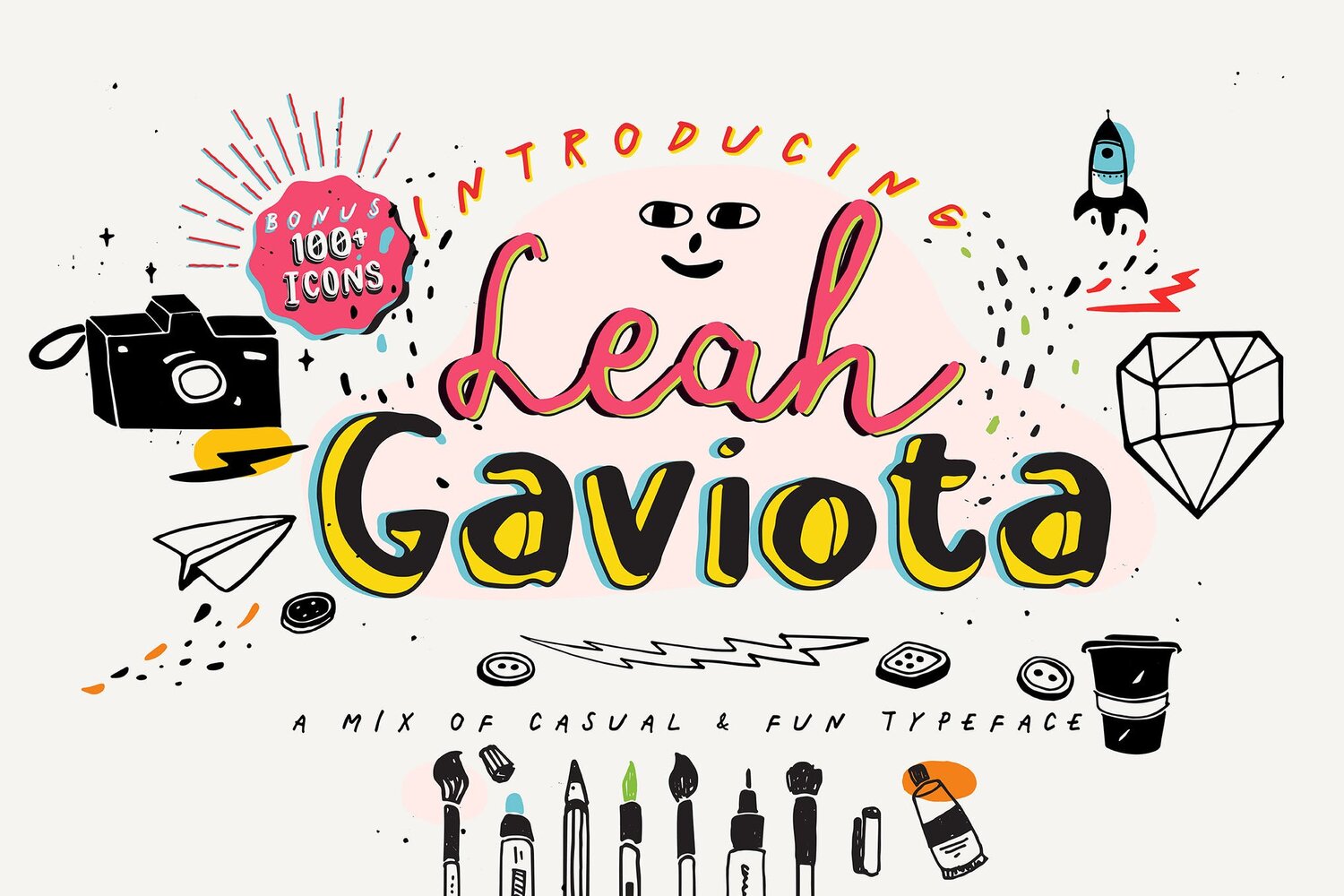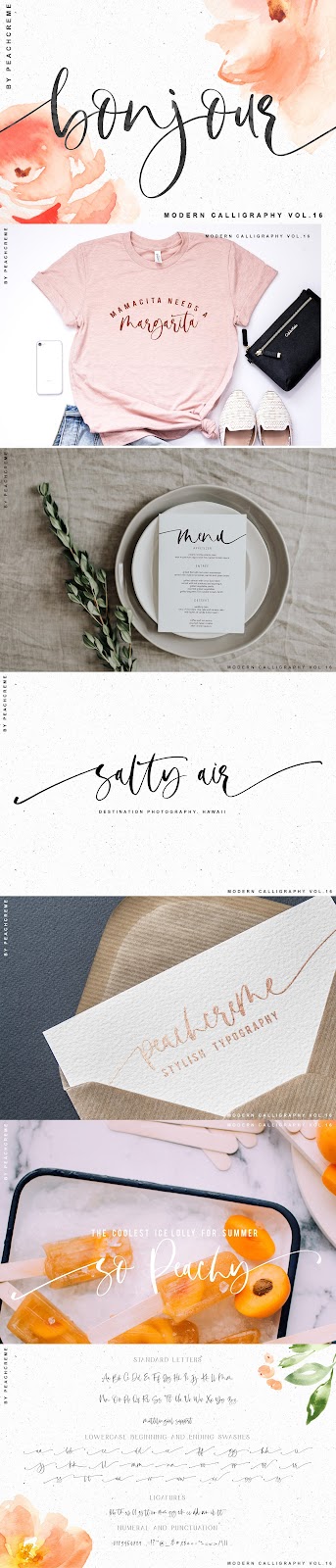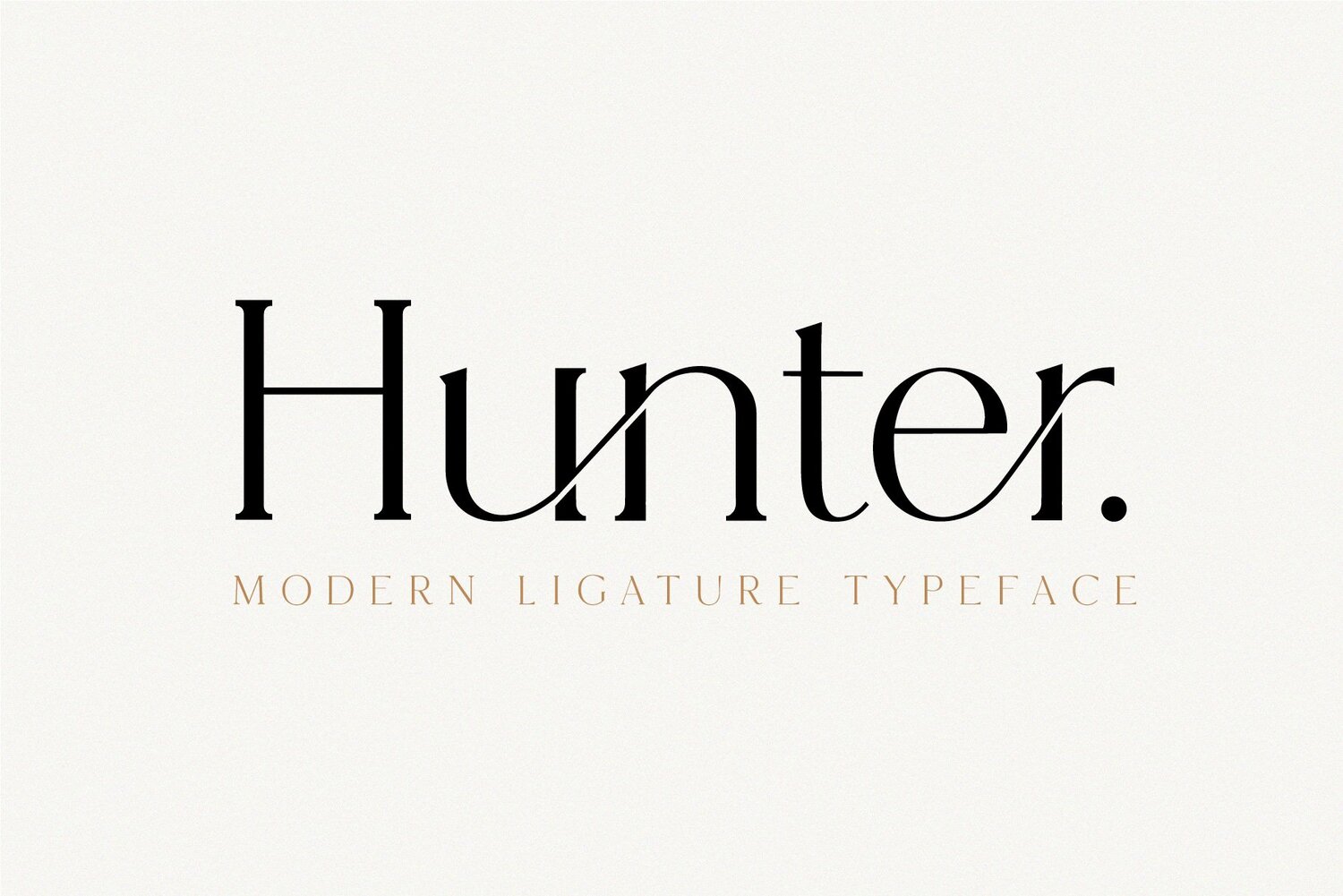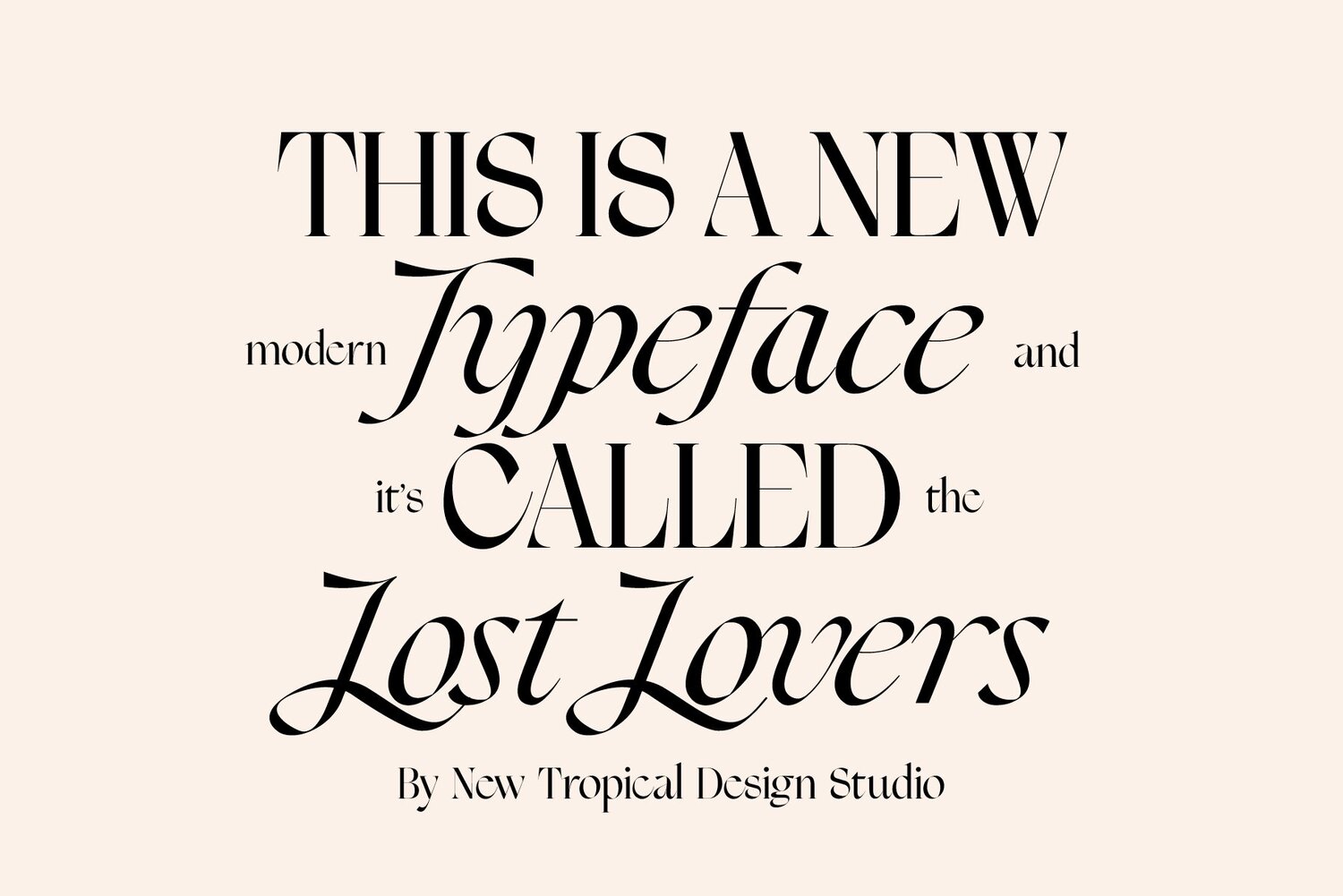
10 of the Best Multi-Use Fonts & An Amazing Font Bundle
Hey BFFs! One of the questions I get asked a lot in DMs or YouTube comments is, “what’s your favorite font for [thing]?” The answer varies based on the specific purpose and on what your aesthetic is, but I put a short list together with some of my favorites, plus a font bundle at the end which offers dozens of fonts for practically any application you can imagine!
Analogue- Want to stay modern and stand out while still being professional? Analogue and others like it are a good way to give that classic office-cubicle-businessperson-vibe, while also helping you stand out in a practical and stylish way.
Leah Gaviota- Fun, frilly. If Analogue is a professional font, Leah Gaviota is its fun cousin. Pretty much the opposite of a professional font like Analogue or Times New Roman in all the best ways. Great for bullet journaling, fun graphics, and even note taking, if you’re looking for a more interesting-looking font to capture your attention. This one comes with a few variations: “double,” “bold,” “script,” and “thin.”
Lost Lovers- True to its name, this is a creative font that hints at romance, fantasy, and adventure. Great for anything related. Wedding invitations, D&D (or other tabletop rpg) campaign props, planning/journaling romantic events or ideas are a few possibilities that come to mind. Plus it kinda reminds me of the Princess Bride, so I had to add it to this list.
Peachy- If you know my content, you know I love retro fonts! Speaks for itself. Overall, a fun, funky, and overall gorgeous font that would be great for graphics, logos, a journal with retro themes, and practically anything else you can think of where you have creative freedom.
Culture- Very metropolitan vibes and applications. Obviously created with the intention of being used to create magazine covers, you can imagine the eye-catching graphics you could create with this font. Chic, sleek, and neat.
Hunter- Another sleek professional font, this time with a bit of an extra flair. You can choose to have the ligatures (the little connecting lines) on or off. I like them, and I can see this used for business cards, logos, wedding invitations, and give a nice smooth flow between certain pairs of letters.
Charming Lines- Charming lines may also look familiar to you if you’ve seen much of my content. This is a lively little script-style font with a cursive or print options. Both are, as it says, quite charming, and gave a boho feel to them. Both are great for planners and journaling and have a happy vibe.
Lemonado- It’s a bit ironic for a font most likely used on an iPad to have a “rustic” vibe, but this one certainly does. Aptly named “lemonado,” you might imagine seeing this script on a sign for a lemonade stand, or labels on jars of fruit preserves. It’s a nice, mature, handwritten script that denotes the hard work you put into your creative projects or anything else you might use it for. Just look at it and how cute it is :)
Bonjour- Want even *more* motivation to travel? A nice calligraphic font like this one is sure to get you in the mood to plan a trip, compile photos of all your top destinations, learn the essential vocabulary for tourists to know, and eventually book those plane tickets!
Girl Boss- Can I be any more on-the-nose with these picks? Probably not. Another all-purpose favorite calligraphy script, this one is equally elegant, but connotes stylish business savvy, or even musical talent (very rock ‘n roll-esque, if you ask me).